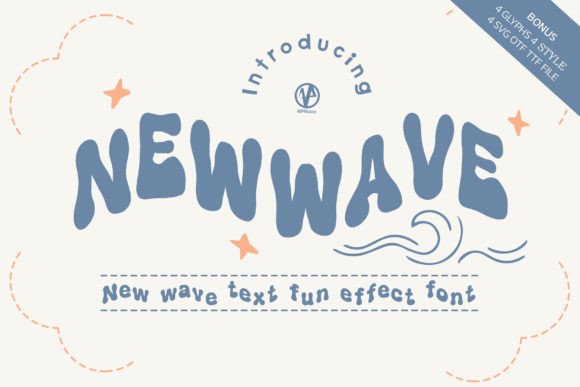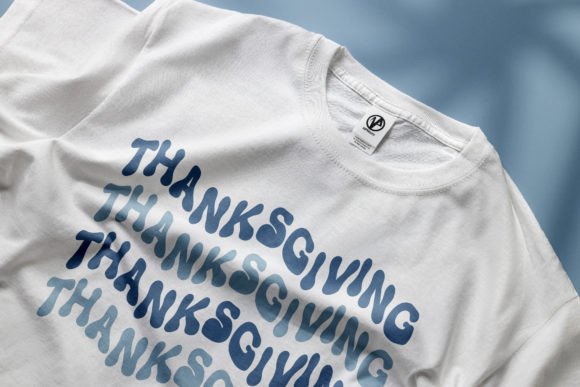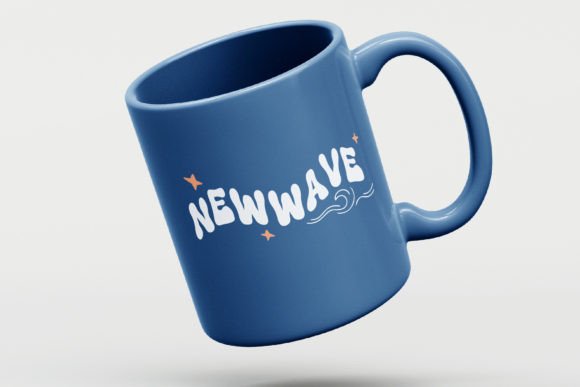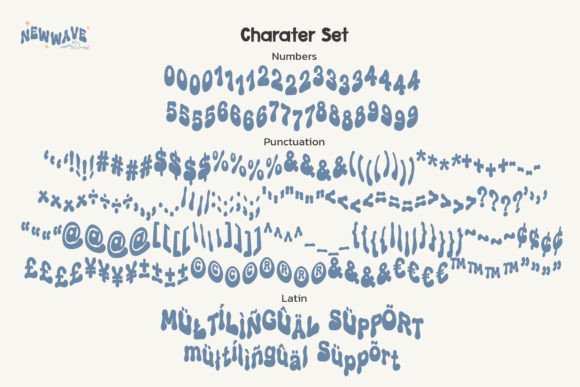
New Wave Font
New Wave is a Groovy and display font that will brighten up each of your designs. Use it on your retro themed 90s, 80s, 70s, 60s Script projects, banners, social media, invitations, cards and so much more. Add it confidently to your projects, and you will love the results.